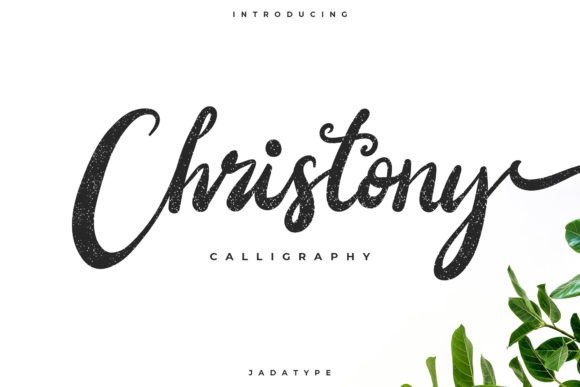
Christony Font
Christony – Bold Script Font will look gorgeous on all your designs, invitation, poster design, book design, branding materials, logo’s, t-shirt and all project design other. This font is PUA encoded which means you can access all of the glyphs and swashes with ease! Add it confidently to your projects, and you will love the results.